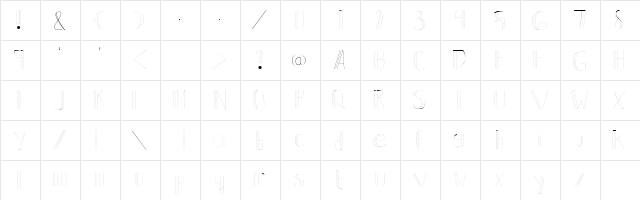
Backline Regular
Design Context for Backline Typeface
Backline takes a measured approach to typography — its balanced proportions and neutral character make it a reliable workhorse for both digital and print work.